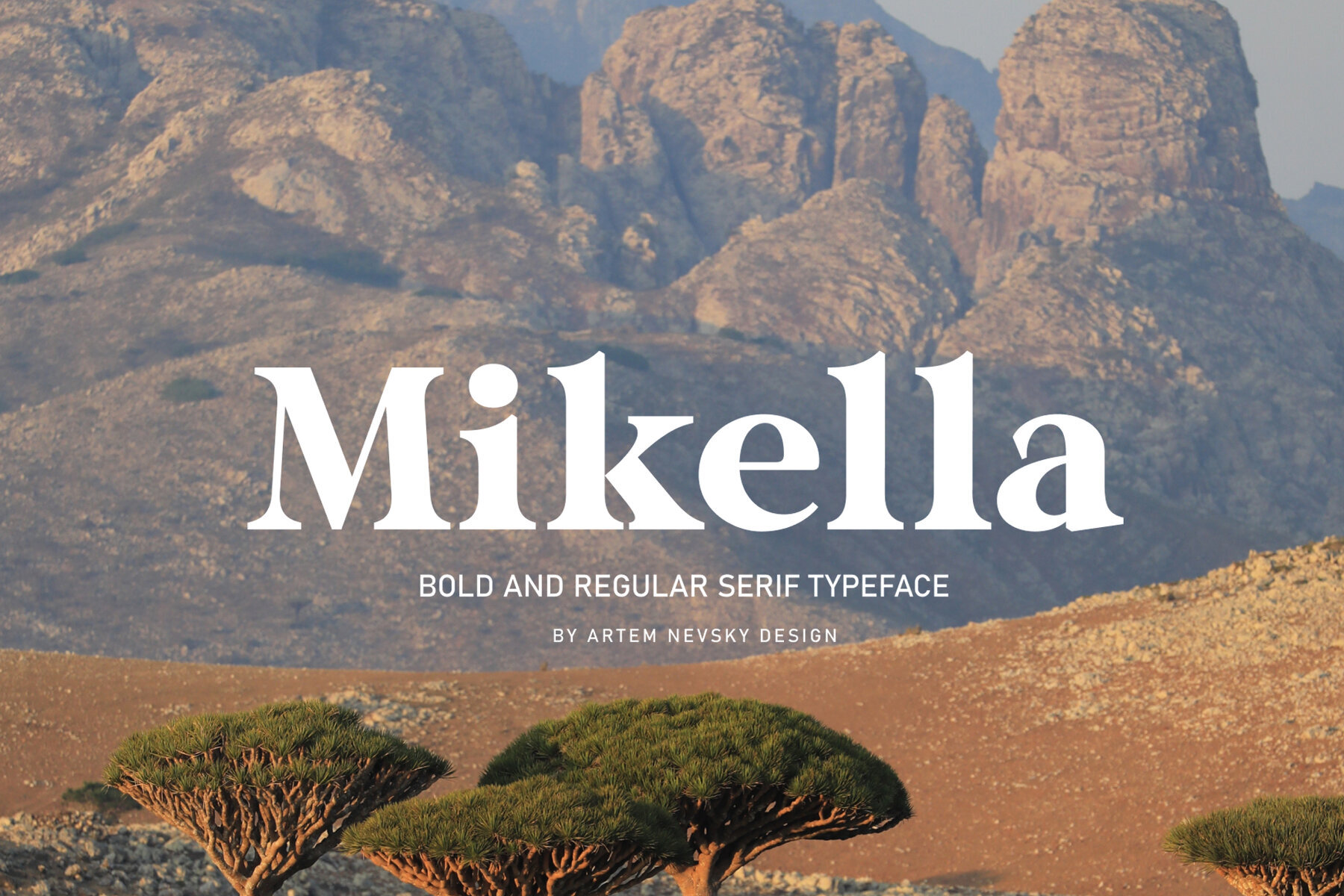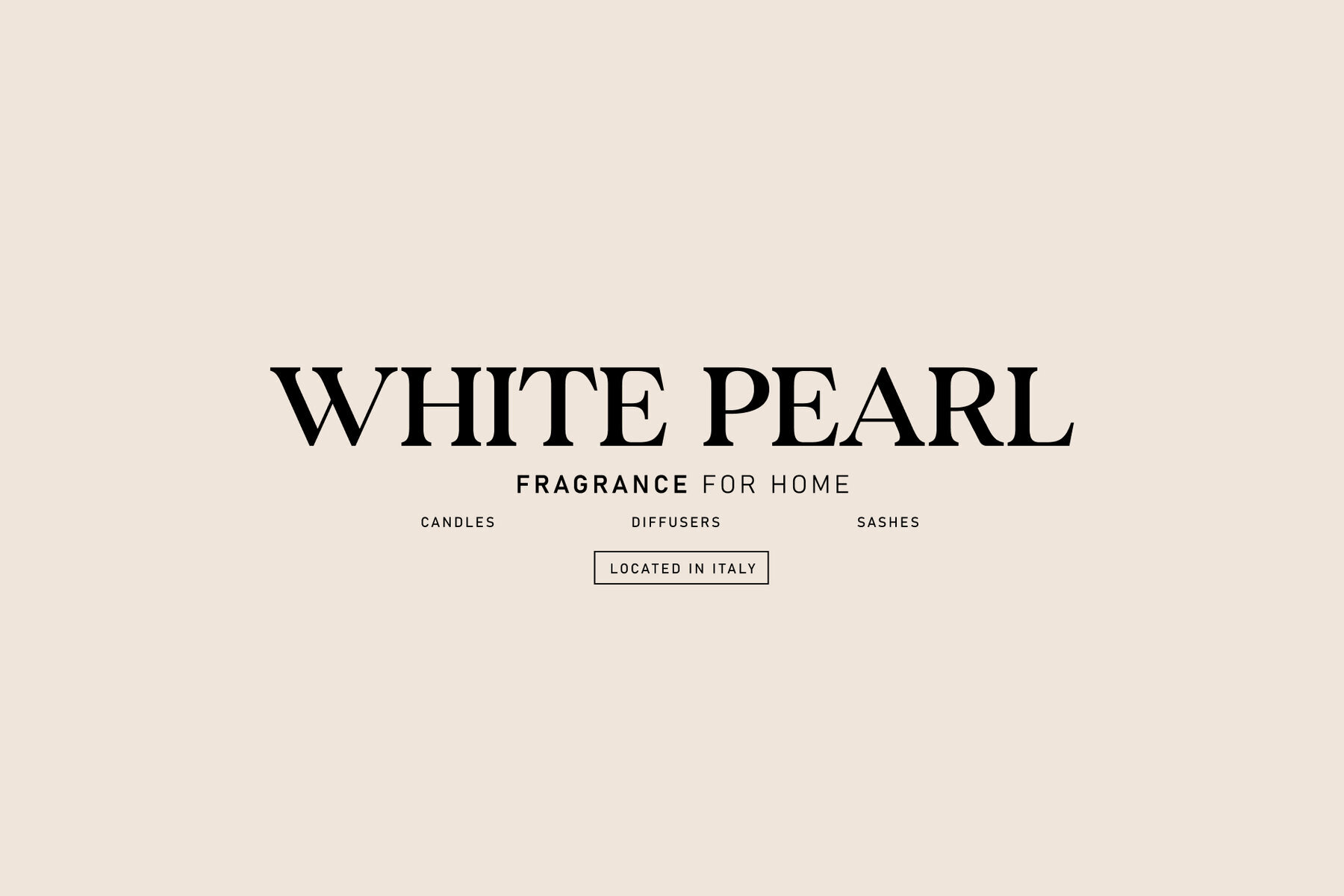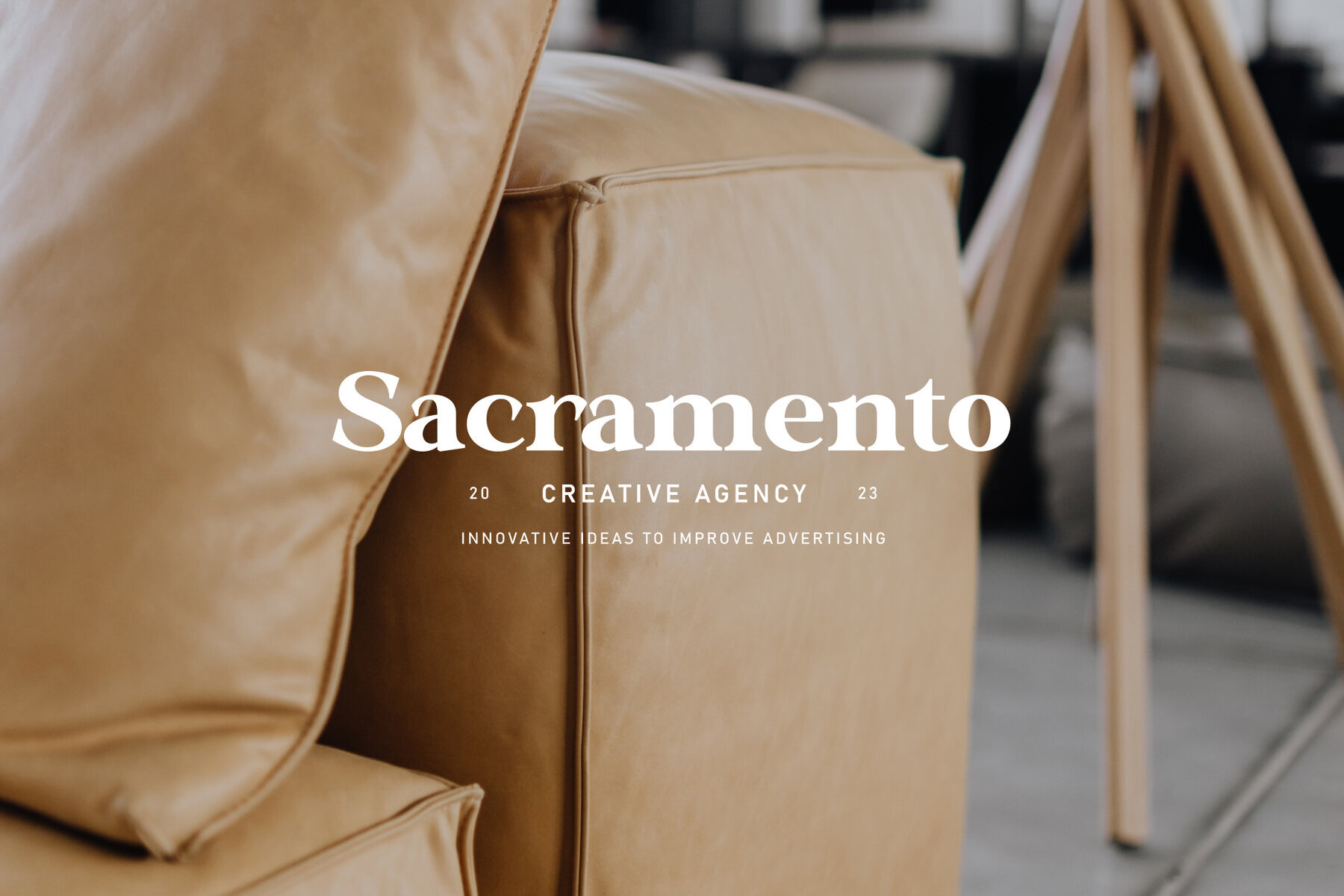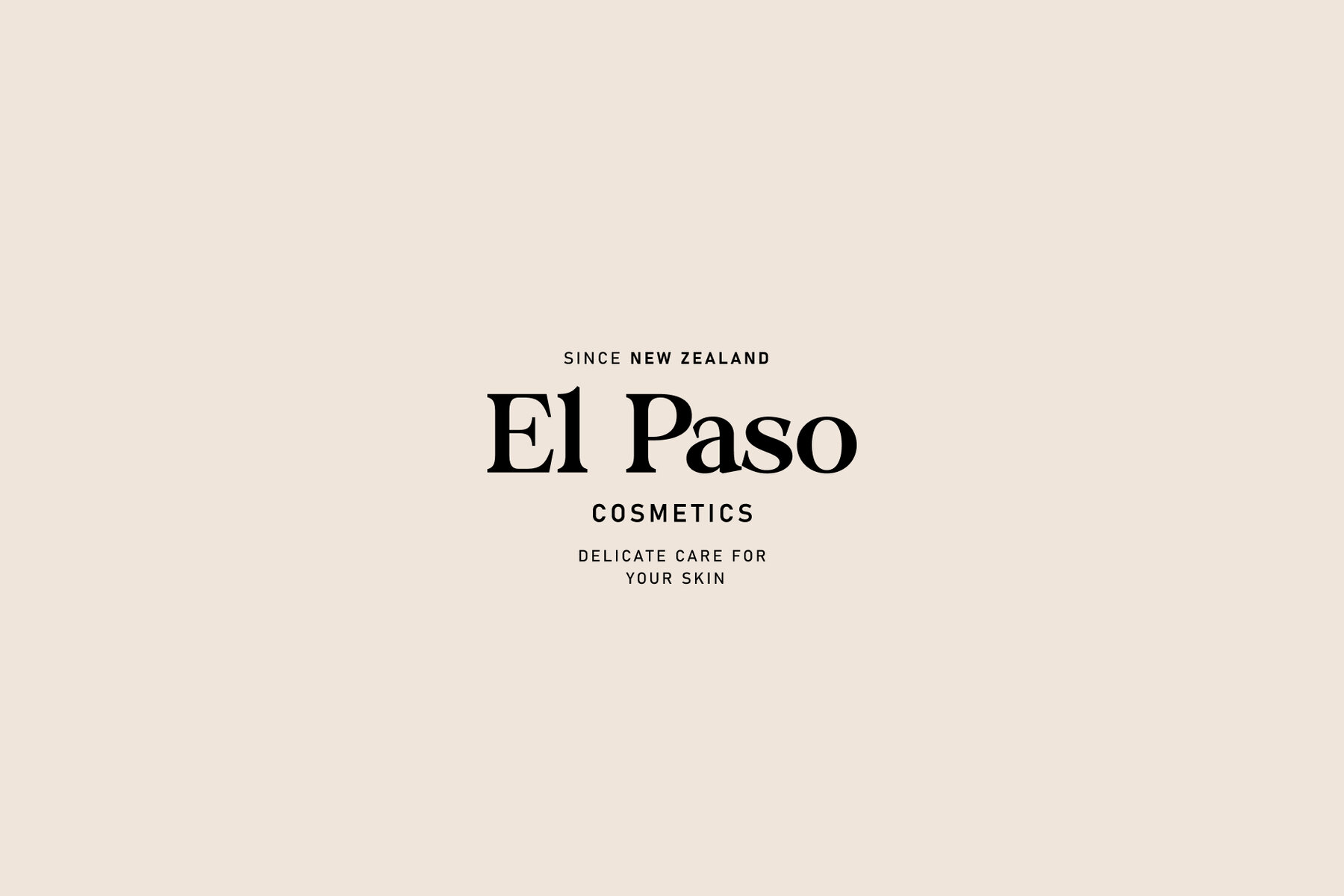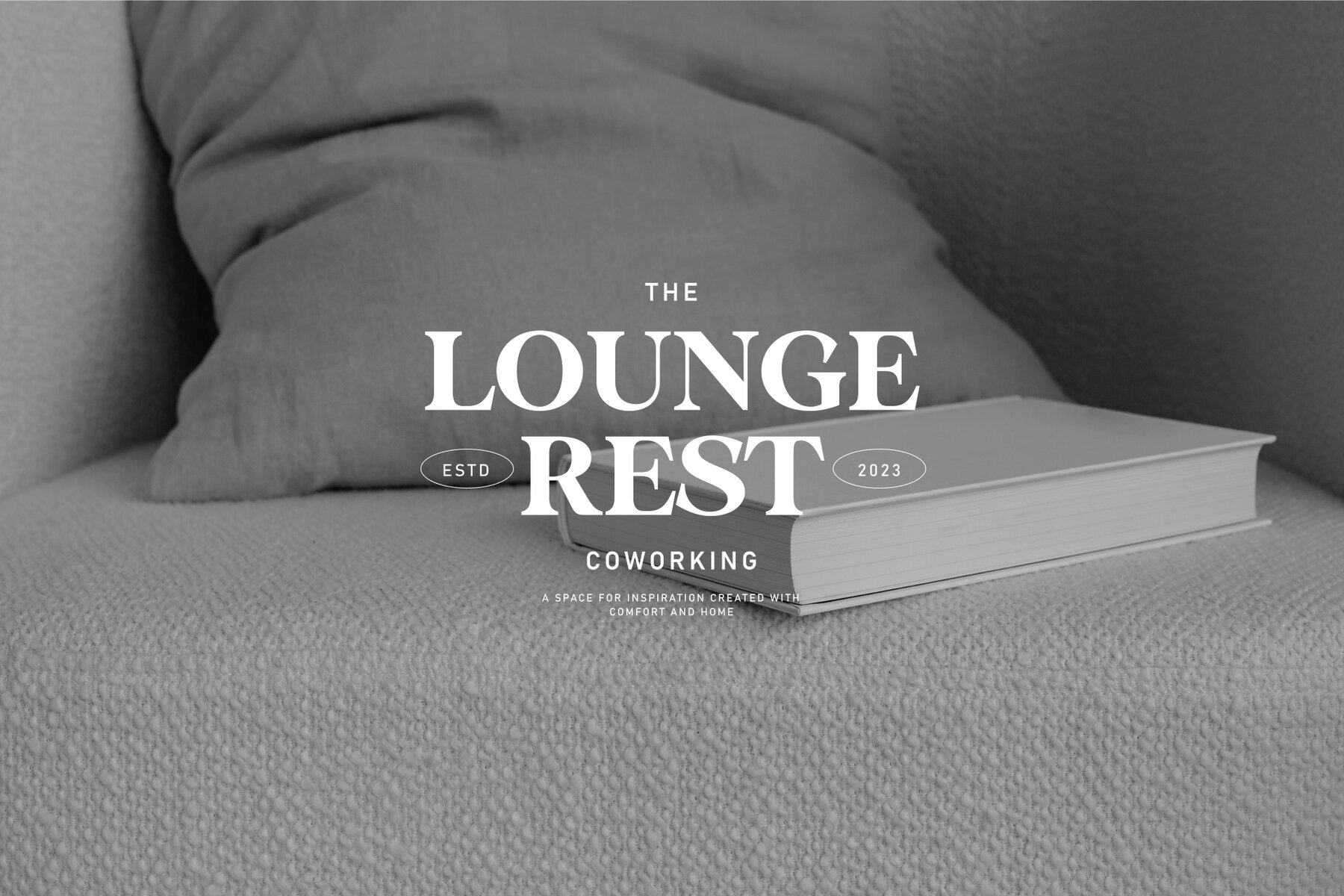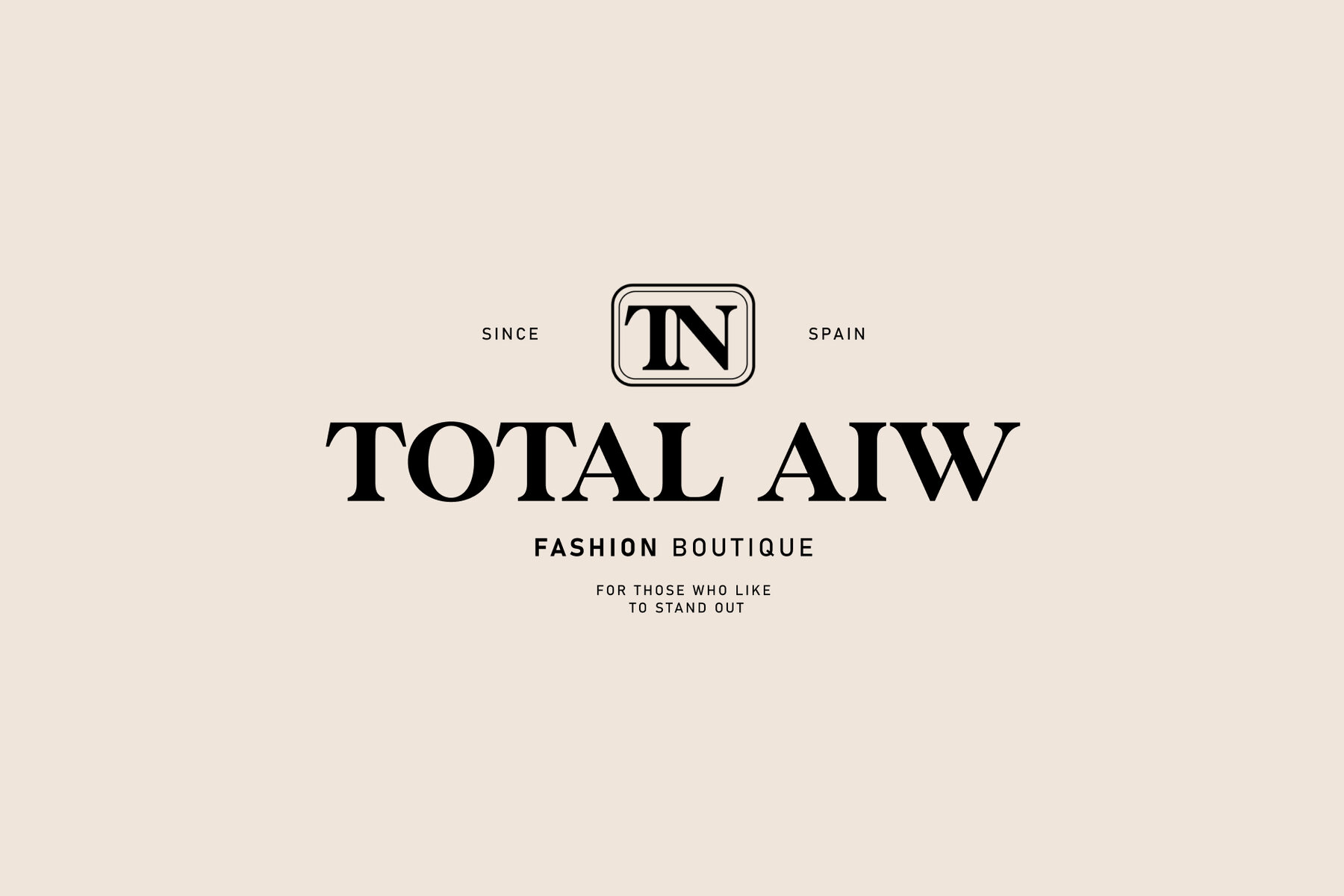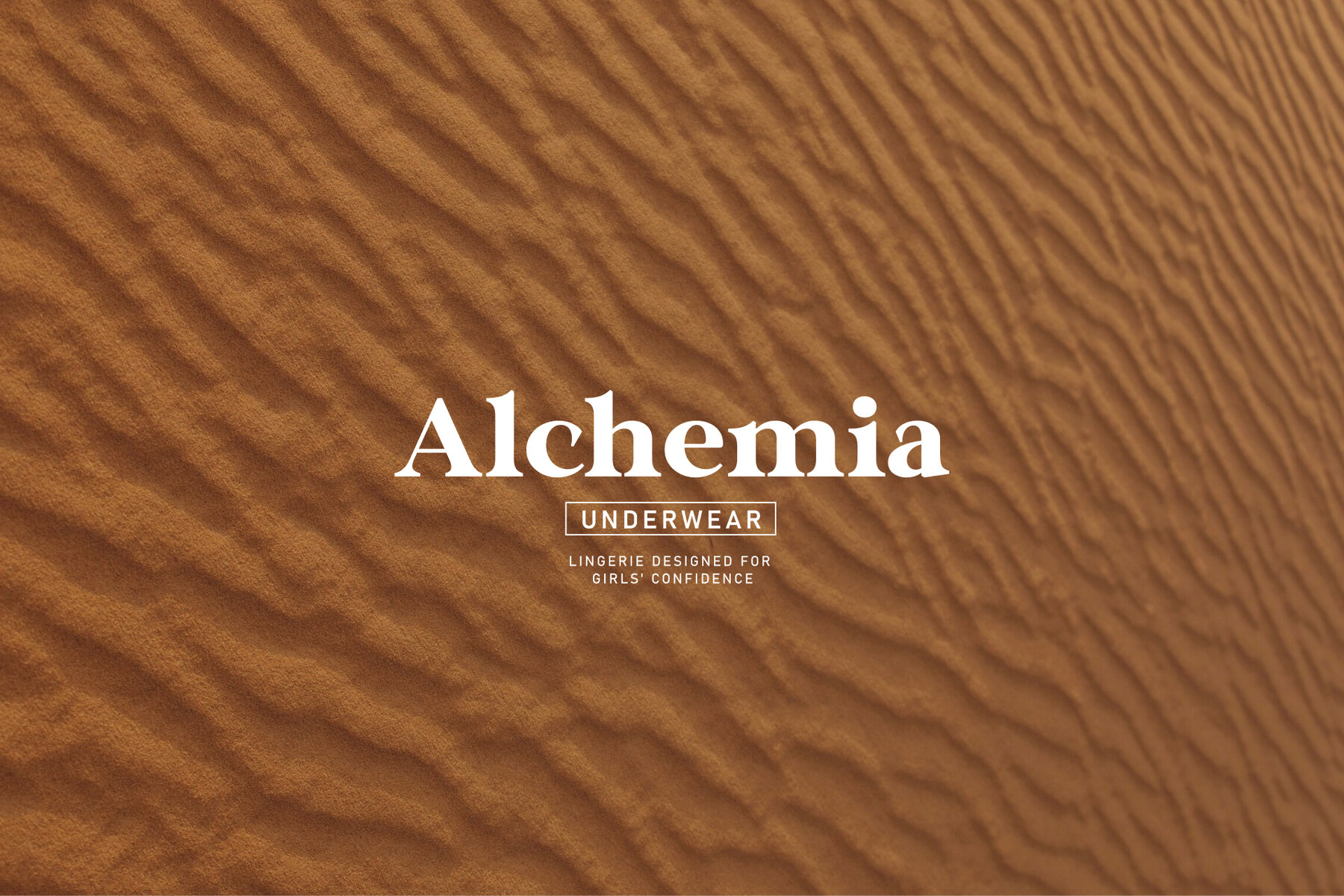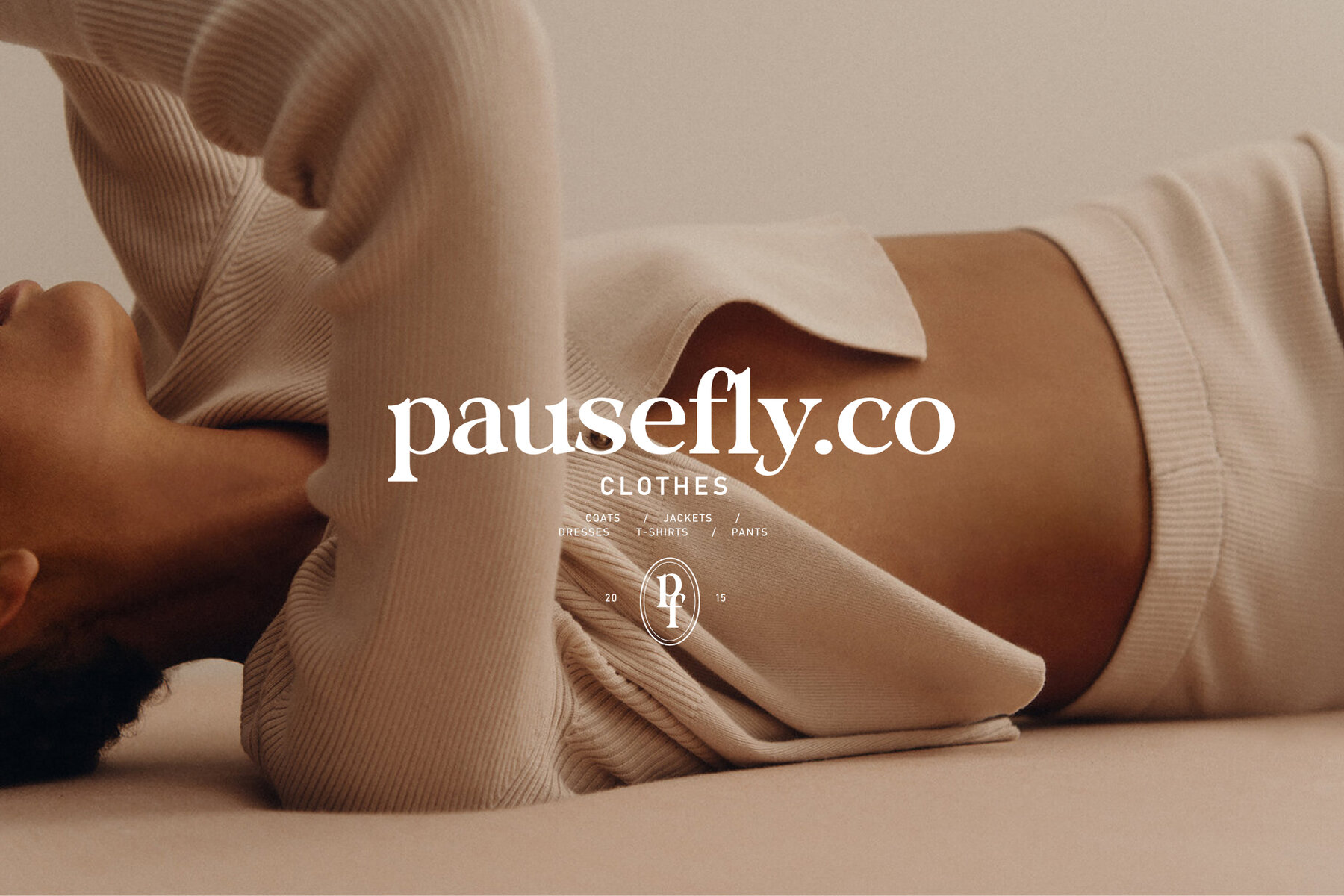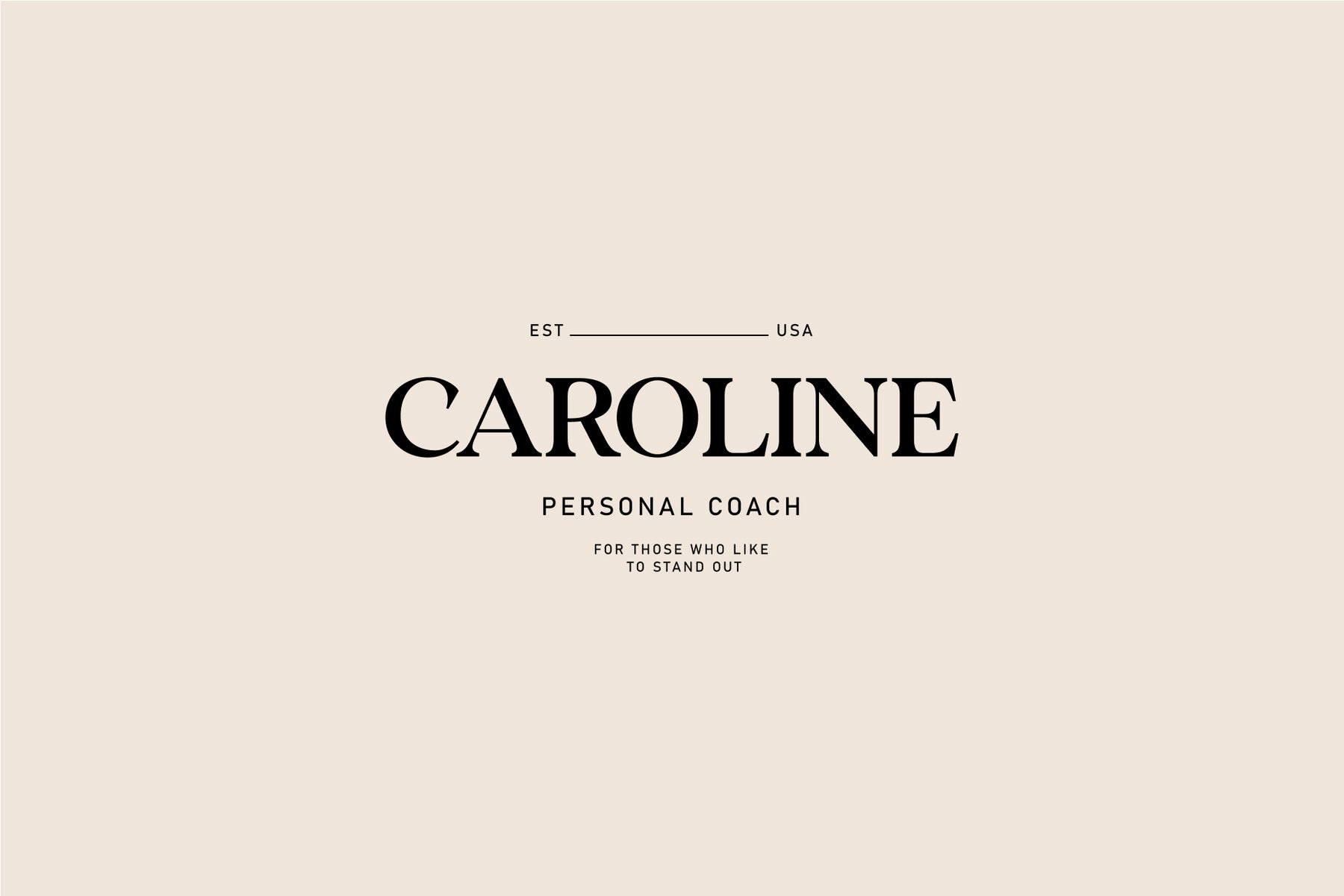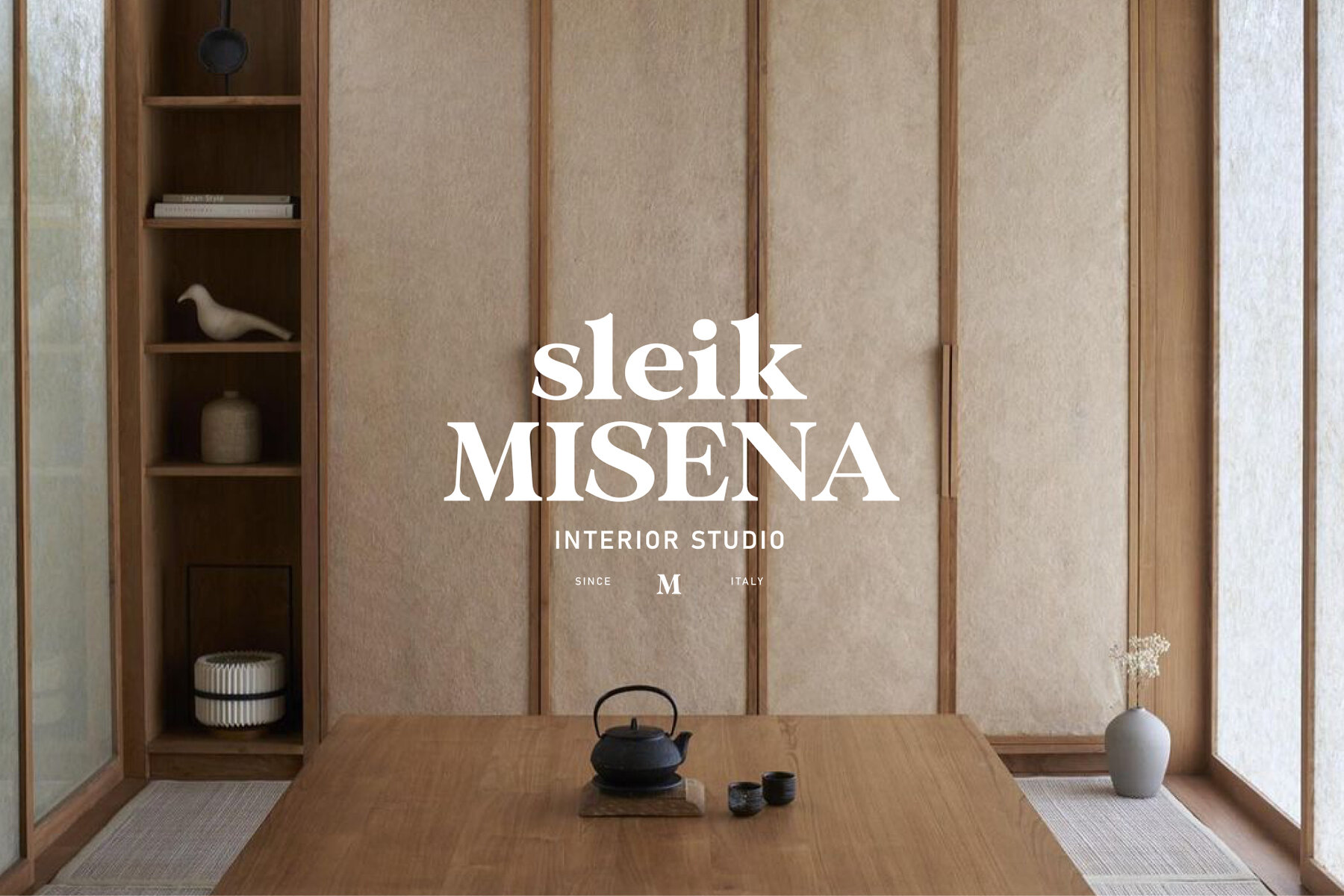
NT Mikella Font
NT Mikella is a distinctive serif font designed by nevsky.type, offering a versatile solution for a variety of design needs. This font ensures clear readability and an elegant aesthetic, suitable for both digital and print media. If you require further details about NT Mikella, please contact nevsky.type via email at •••.NT Mikella: A Comprehensive Serif for Global Communication
Global Language Support